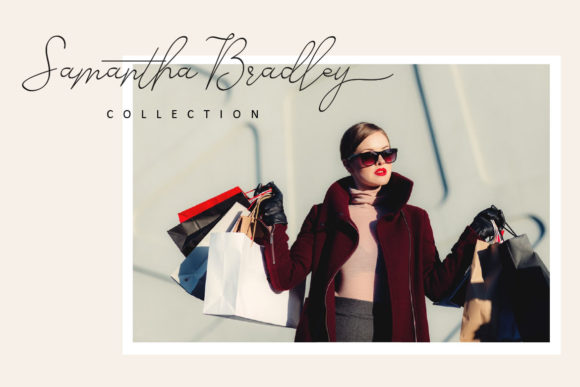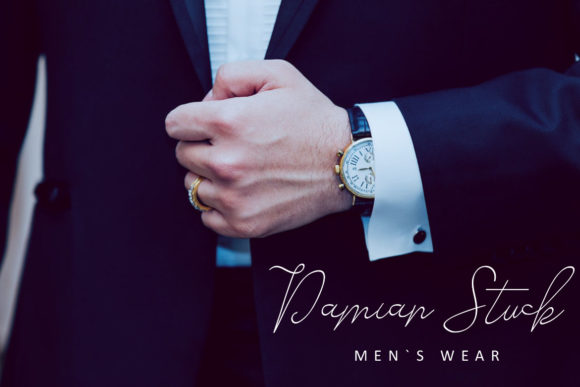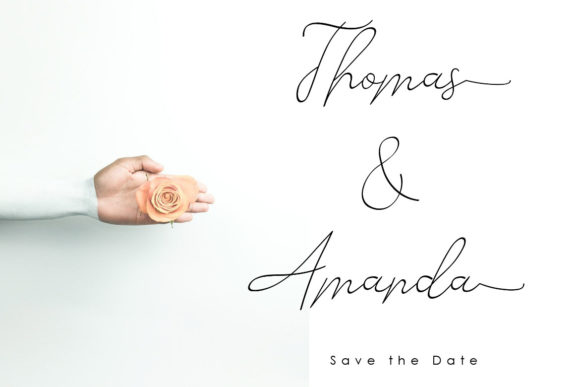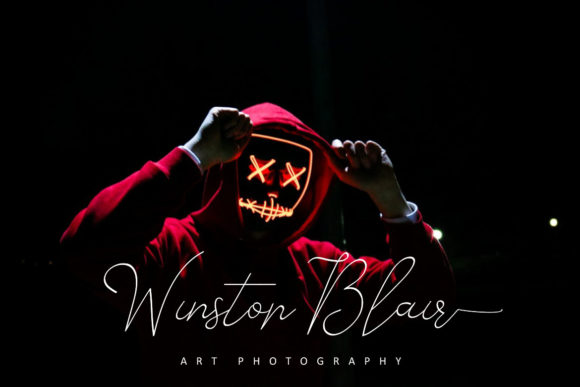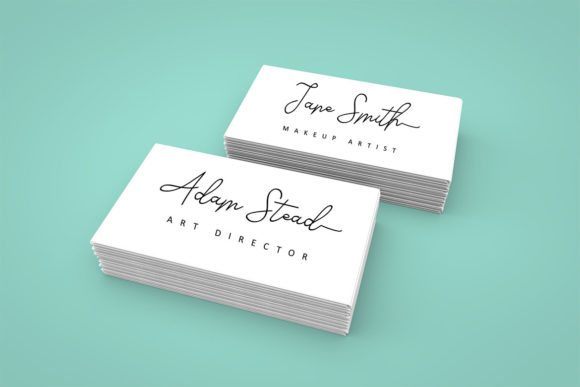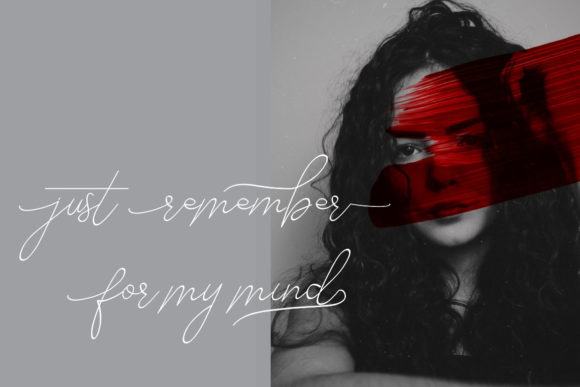
The Perfect Script for Your Next Design Project
Have you ever stared at a blank page, waiting for inspiration to strike? That’s exactly what happened to me last week. I was brainstorming ideas for a new branding project when I stumbled upon the perfect script – Alesana Font. Its modern and fresh design immediately caught my eye, and I knew I had to learn more.
Alesana Font is a signature script that exudes a natural and classy touch, making it perfect for adding a personal touch to your designs. Whether you’re working on a wedding invitation, a logo, or a packaging design, this font is sure to elevate your project. What makes Alesana Font so valuable for designers is its versatility and timeless appeal – it never goes out of style!
Alesana Font Key Features
- Font Family: Alesana is a modern calligraphy font with a unique, handwritten feel.
- Size: The font family includes multiple weights, ranging from Light to Heavy, with 8 different styles to choose from.
- Unique Characteristics: Alesana Font features connected letters, swashes, and ligatures, making it perfect for creative and artistic projects.
- Font Metrics: Alesana Font has a x-height of 50% and an average character width of 0.5 em, making it suitable for body text and display use.
Alesana Font Review
Alesana Font is a beautiful script font that works well in various contexts, ✨ especially for wedding invitations, event branding, and other creative projects that require a touch of elegance.
- ✨ Unique and flowing letterforms make it perfect for adding a personal touch to your designs.
- ✨ The font comes in various weights, from light to bold, allowing for a range of visual effects.
- ✨ Alesana Font supports a wide range of languages, making it a versatile choice for designers.
- ⚠️ The font may not be suitable for body text, as it can be difficult to read at smaller font sizes.
- ⚠️ The font’s flowing nature can make it challenging to work with in certain design applications.
- ⚠️ Some users have reported issues with font compatibility across different operating systems.
Overall, Alesana Font is a beautiful and versatile script font that can add a touch of elegance to your designs. While it may have some limitations, it’s definitely worth considering for your next creative project.
Alesana font is ideal for:
- Formal business presentations
- Editorial and literary publications
- Wedding and event branding
Alternatives to Alesana Font
Crimson Text is a classic serif font that is perfect for body text and is often used in novels and academic papers. It has a similar elegant and sophisticated feel to Alesana Font, but with a more traditional and timeless look.
When to use: Body text, novels, academic papers
Comparison: While Alesana Font has a more modern and sleek feel, Crimson Text is more traditional and classic.
Playfair Display is an elegant and luxurious script font that is perfect for headings and titles. It has a similar high-end feel to Alesana Font, but with a more ornate and decorative look.
When to use: Headings, titles, luxury branding
Comparison: While Alesana Font is more versatile and can be used for body text, Playfair Display is more suited for headings and titles due to its ornate and decorative look.
Merriweather is a classic serif font that is perfect for body text and is often used in novels and academic papers. It has a similar elegant and sophisticated feel to Alesana Font, but with a more traditional and timeless look.
When to use: Body text, novels, academic papers
Comparison: While Alesana Font has a more modern and sleek feel, Merriweather is more traditional and classic, with a slightly more formal look.
Montserrat is a modern sans-serif font that is perfect for body text and is often used in digital design and branding. It has a similar sleek and modern feel to Alesana Font, but with a more geometric and minimalist look.